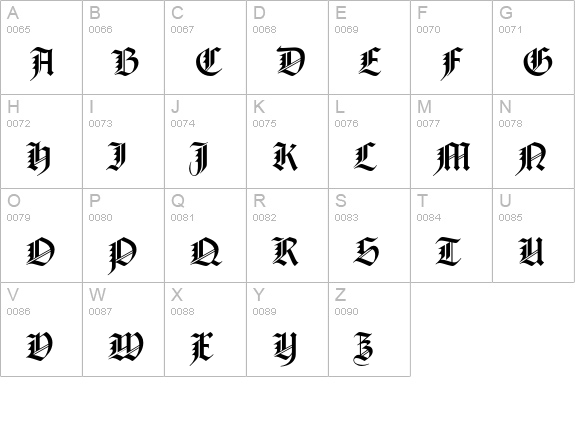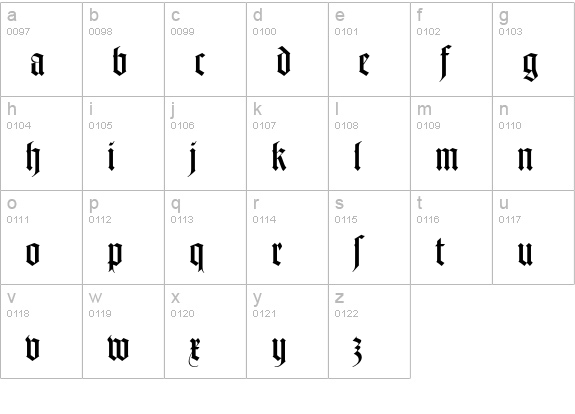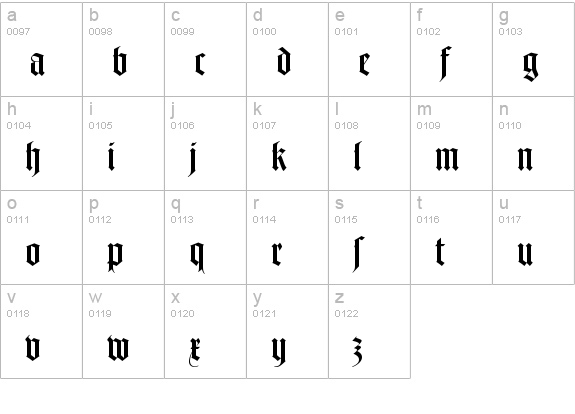
Notre Dame RomanDfr Font Details
Notre Dame RomanDfr is a stunning and elegant font that exudes timeless sophistication and classic charm. Its delicate serifs and graceful curves give it a sense of refinement and beauty, making it ideal for a wide range of design projects. Whether you're creating invitations, branding materials, or editorial layouts, this font will add a touch of sophistication to your work. What's even better is that Notre Dame RomanDfr is available for free download at FontsMarket.com. This means that you can easily access this exquisite font and incorporate it into your designs without any cost. So why wait? Download Notre Dame RomanDfr today and elevate your projects with its timeless elegance and charm.